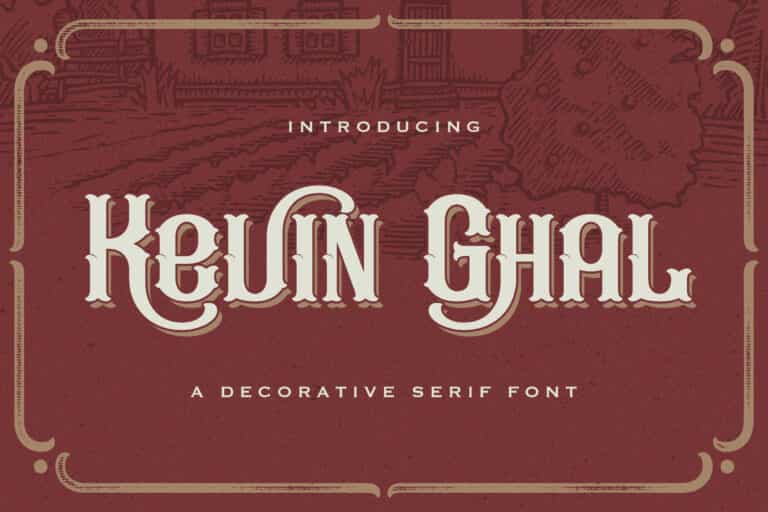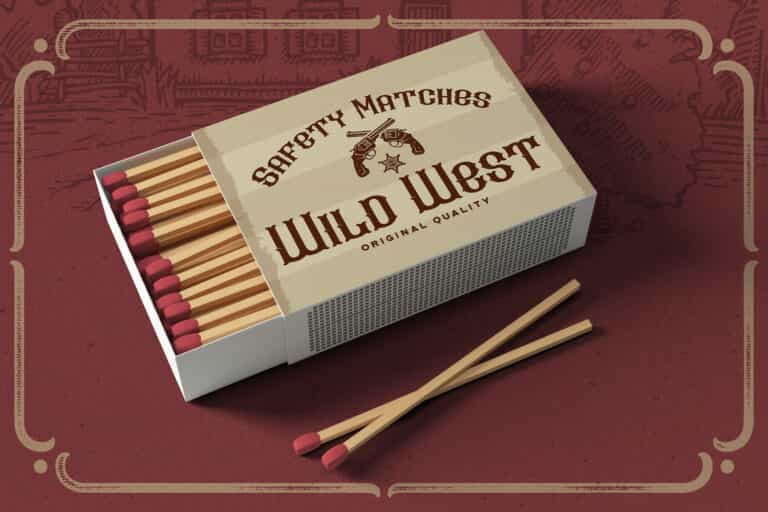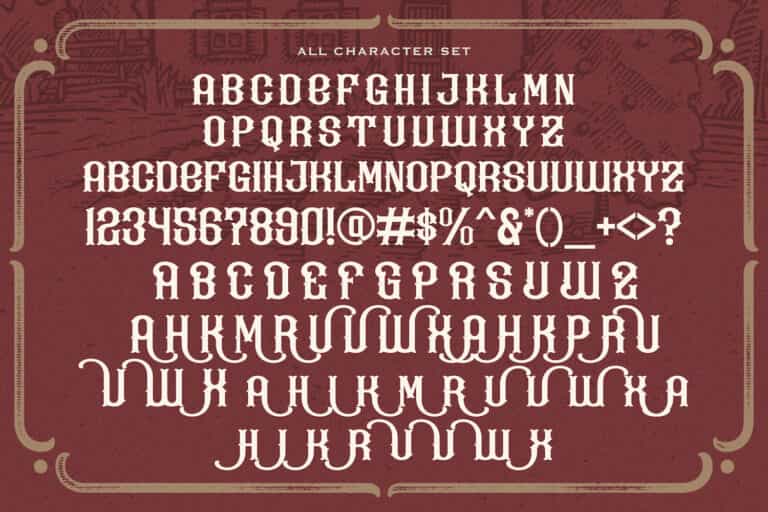
Kevin Ghal Decorative Serif Font is an exquisite combination of elegance, classic, and stylish decorative fonts with a Victorian vibe. Aquero stands out as an eye-catching typeface inspired by vintage tattoo designs; making for an absolutely striking and attractive typeface.